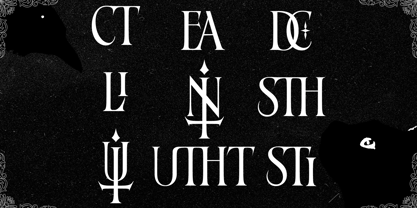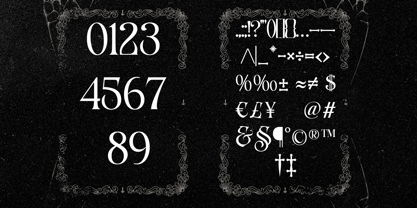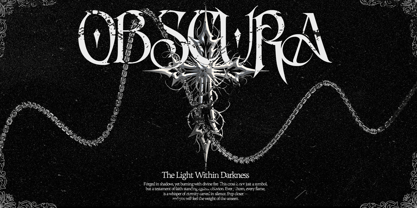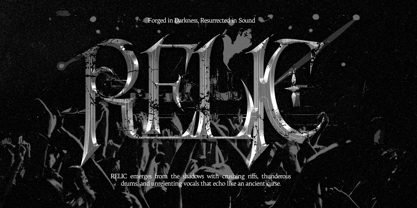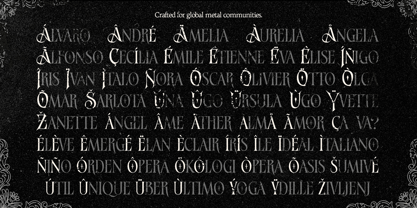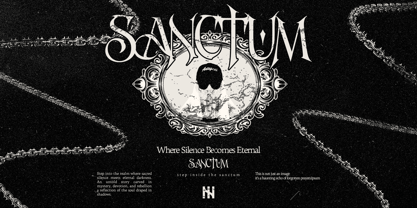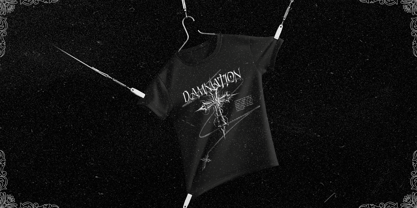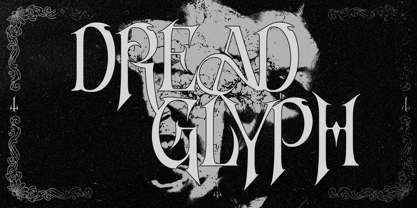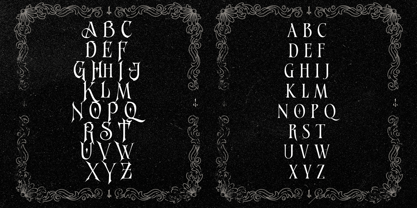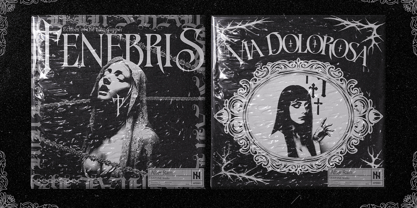
Dreadglyph
by Inviline
The Dreadglyph Font Family was designed by Virgiawan Listanto and published by Inviline. Dreadglyph contains 1 styles. More about this family
Dreadglyph is a dark metal horror typeface distinguished by its sharp serifs, occult details, and aggressive forms, making it an ideal choice for band logos, album covers, and striking visual identities. This powerful horror typeface is forged from darkness, drawing inspiration from black metal aesthetics, occult symbolism, and gothic ornamentation. Featuring razor-sharp serifs, distorted letterforms, and ritualistic details, this font embodies aggression, mystery, and raw energy. Each glyph is meticulously crafted to evoke a sense of chaos and elegance, making it perfect for designs that demand intensity and presence. Whether you're creating underground music visuals or dark editorial layouts, Dreadglyph delivers a haunting and unforgettable typographic voice that captivates and engages audiences.
Designers: Virgiawan Listanto
Foundry: Inviline